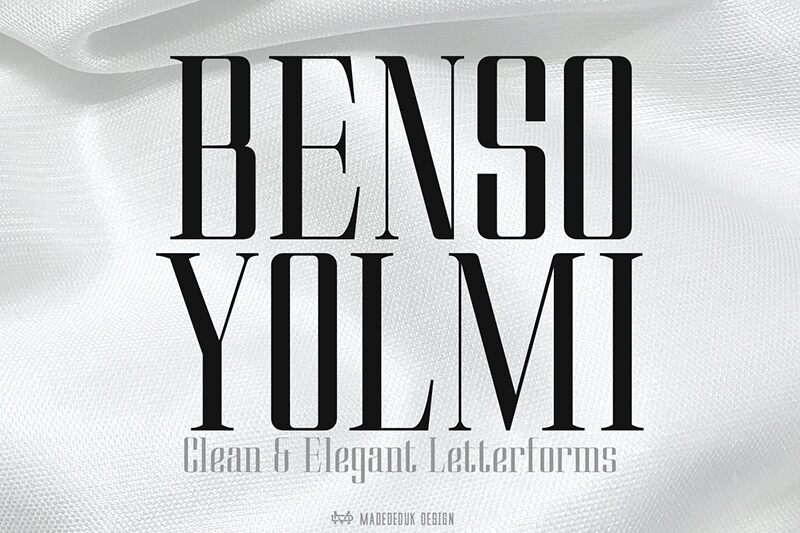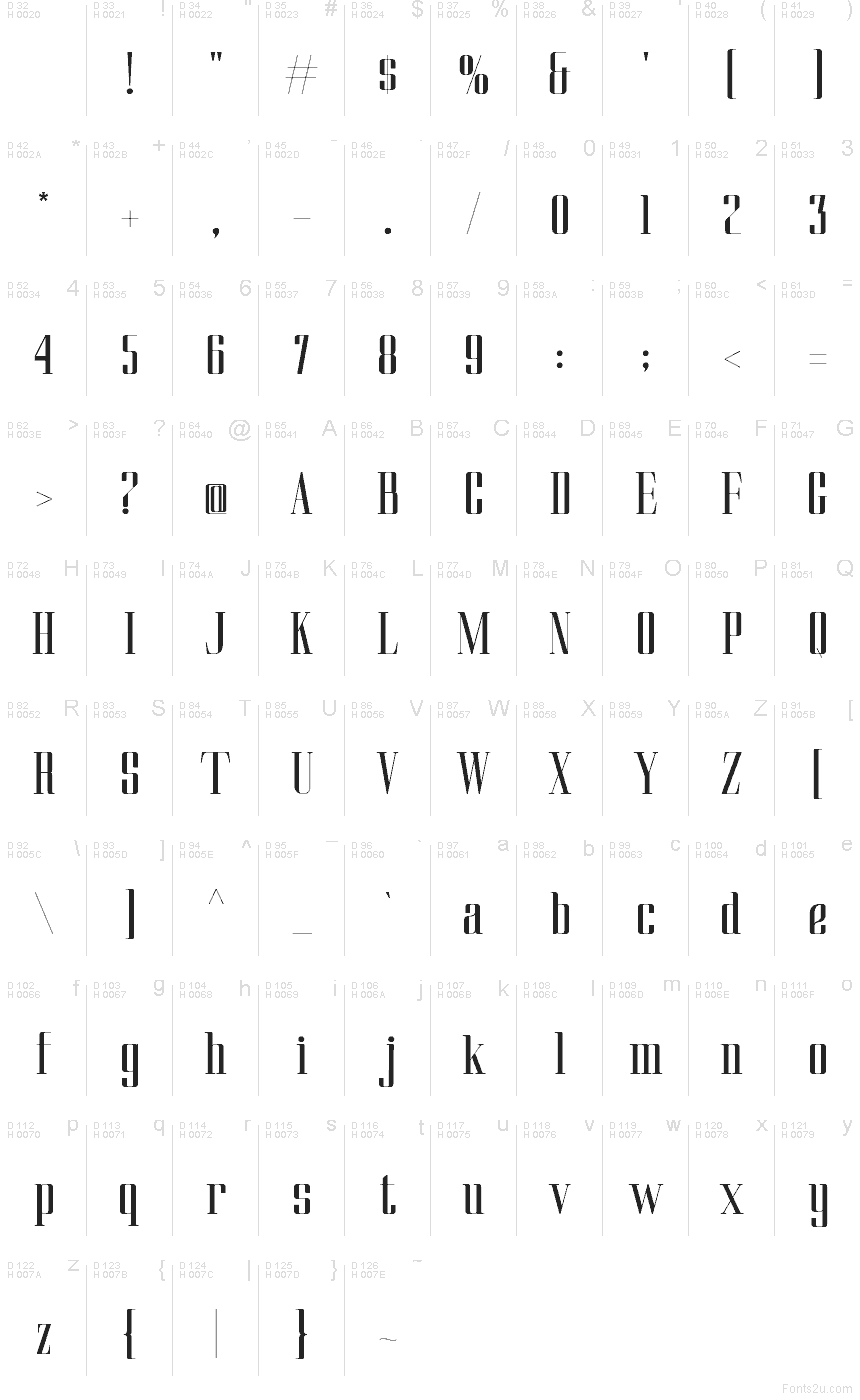
Benso Yolmi Regular
Benso Yolmi, by Suandana Ipandemade, is a free high-contrast serif with a fashion-editorial mood. The letters feel tall and narrow, pairing long vertical emphasis with soft, rounded curves, so the font reads as poised and slightly dramatic rather than ornate.
It fits branding, magazine mastheads, boutique packaging, poster titles, and menu headings where a free font can carry a refined, boutique tone without slipping into nostalgia. Because the shapes are compressed and elegant, it also works well for short cover lines, monograms, and title cards that need a slim silhouette and a touch of old-style glamour.